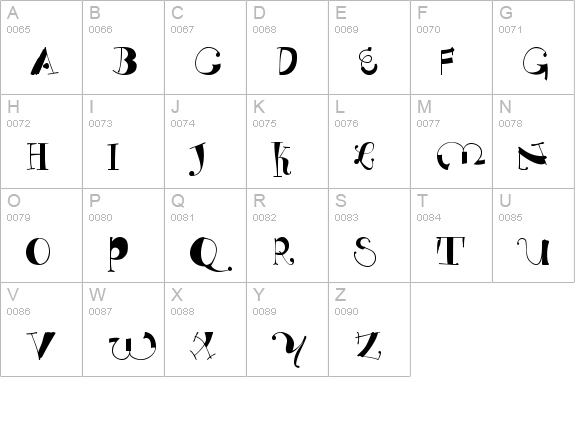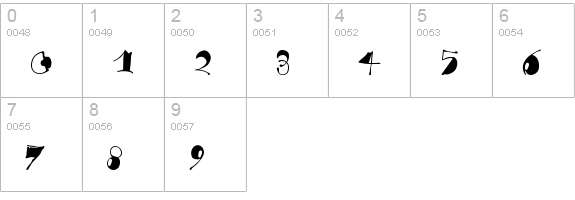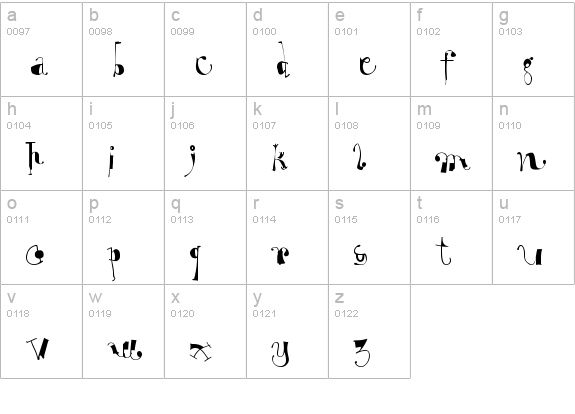
WhyNotEF Font Details
Introducing WhyNotEF, the font that effortlessly combines elegance with modernity. This versatile typeface boasts an impeccable balance of clean lines and subtle curves, making it a perfect choice for various design projects. WhyNotEF captivates with its timeless appeal, adding a touch of sophistication to any creative endeavor. Whether you're designing a logo, crafting a website, or creating eye-catching marketing materials, this font will elevate your work to new heights. What sets WhyNotEF apart is not only its impeccable design, but also its accessibility. It is freely available to download at FontsMarket.com, allowing designers of all backgrounds to enjoy the benefits of this remarkable font. This means that you can enhance your projects without breaking the bank, making WhyNotEF an invaluable asset in your design toolkit. With a wide range of weights and styles to choose from, WhyNotEF offers endless possibilities for customization. Whether you prefer a bold and impactful look or a more delicate and refined aesthetic, this font has it all. Its versatility ensures that it can seamlessly adapt to any design concept, adding a touch of professionalism and elegance to your work. In addition to its visual appeal, WhyNotEF also boasts excellent legibility, ensuring that your audience can effortlessly read and engage with your content. Its carefully crafted letterforms and balanced spacing make for a smooth reading experience, allowing your message to shine through. WhyNotEF is more than just a font; it's a tool that empowers designers to bring their visions to life. So why settle for mediocrity when you can elevate your designs with the remarkable WhyNotEF font? Download it for free today at FontsMarket.com and unlock a world of design possibilities.